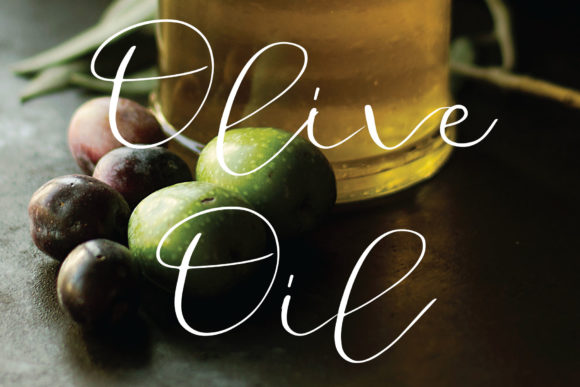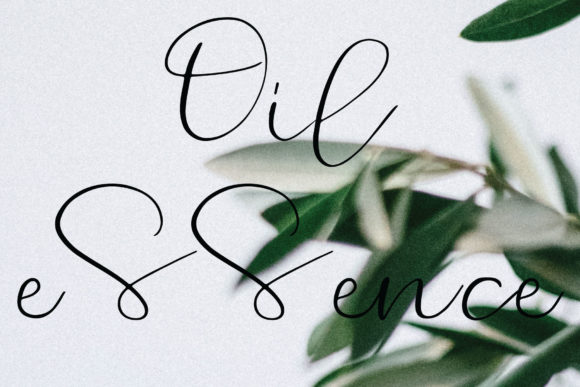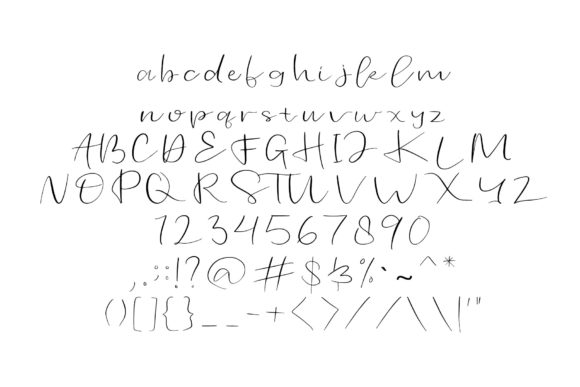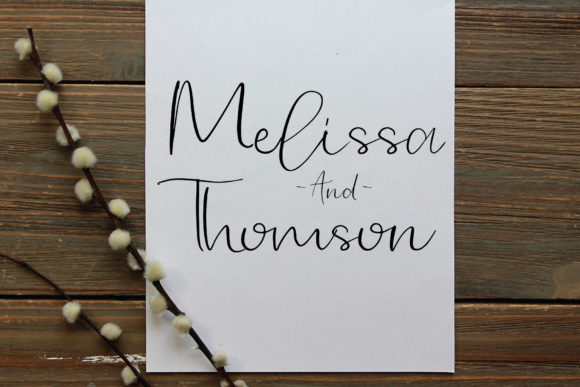
The Cinnamon Font: A Timeless Addition to Your Crafting Collection
I’ll never forget the time I was working on a handmade wedding invitation project, and my client asked for a font that would evoke a sense of warmth and coziness. I scoured the internet, tried out countless fonts, but nothing seemed quite right. That was until I stumbled upon the Cinnamon font. With its classic script style and elegant flair, it was the perfect fit for the project. In this article, we’ll dive into the world of Cinnamon font, exploring its features, uses, and alternatives.
A Personal Review of Cinnamon Font
As a designer, I’m always on the lookout for fonts that can elevate my projects and make them stand out. Here’s my honest review of Cinnamon font:
- ✨ Elegant and classic script style that’s perfect for crafting and handmade projects
- 💫 Beautifully designed swashes and flourishes that add a touch of sophistication
- 🎨 Versatile and works well with a variety of design styles, from rustic to modern
While Cinnamon font is an excellent addition to any design collection, there are a few things to keep in mind:
- 🤔 Some users may find the font a bit too ornate for certain projects, such as body text or captions
- ⚠️ The font may not work well with very short or very long texts, as it can become difficult to read
The Story Behind Cinnamon Font
Cinnamon font was designed with the crafty enthusiast in mind. Its creator, a talented type designer, wanted to create a font that would evoke a sense of warmth and coziness, perfect for handmade projects and crafting. The font’s classic script style and elegant flair make it an excellent addition to any design collection.
Q: What is the best way to use Cinnamon font?
A: Cinnamon font is best used for crafting and handmade projects, such as wedding invitations, greeting cards, and DIY tutorials.
Q: Is Cinnamon font available in different languages?
A: Cinnamon font may not support all languages, but it does include a range of characters and glyphs to support basic English language needs.